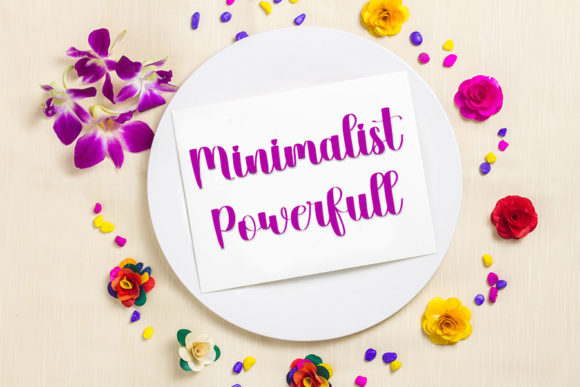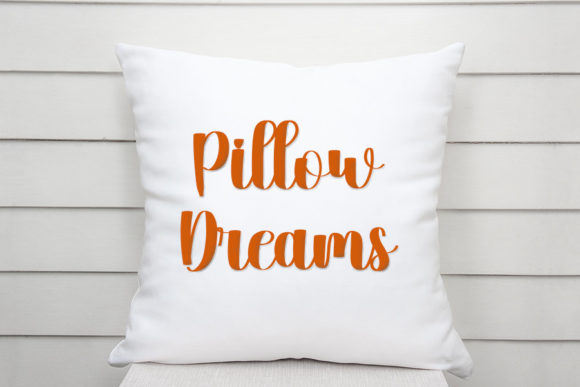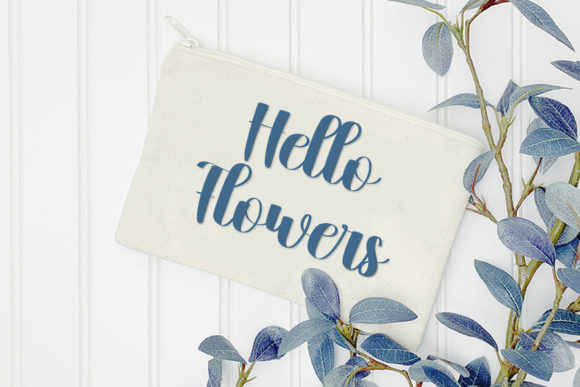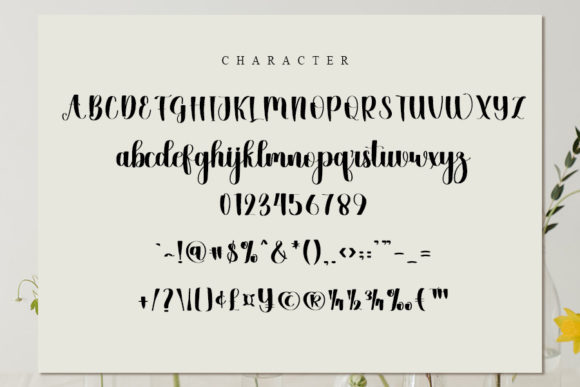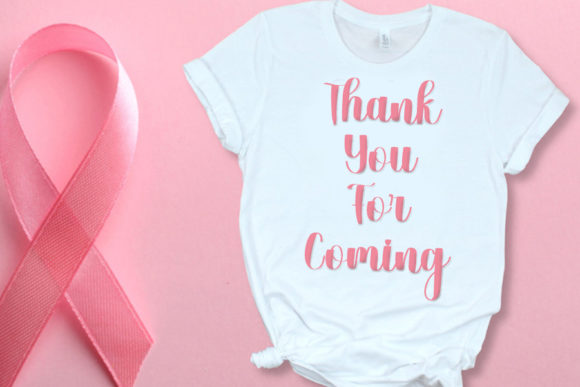
The Ultimate Guide to Culture Font: Elevate Your Designs with Elegance
I’ll never forget the time I was working on a wedding invitation design for a client, and I just couldn’t seem to find the perfect font. The project required something elegant, modern, and classy, but everything I tried looked either too bland or too over-the-top. That’s when I stumbled upon Culture Font, a beautiful and refined script font that instantly caught my eye. In this article, I’ll share my experience with Culture Font, its features, and how to make the most of it in your designs.
What is Culture Font?
Culture Font is a stunning script font designed for creative professionals like you. It boasts a classy, elegant, and modern look that’s perfect for logos, branding, invitations, stationery, wedding designs, social media posts, and more! One of the standout features of Culture Font is that it’s PUA (Private Use Area) encoded, which means you can easily access all the amazing glyphs and ligatures.
My Honest Review of Culture Font
- ✨ Elegant and modern design that’s perfect for high-end projects
- ✅ PUA encoded for easy access to glyphs and ligatures
- 💫 Highly versatile and can be used for various design projects
- 👍 Excellent for creating beautiful wedding designs, logos, and branding materials
While Culture Font is an excellent choice for many design projects, there are a few things to keep in mind:
- ⚠️ Some users may find the font a bit too ornate for certain projects
- 🤔 Limited use for body text due to its script nature
The Designer Inspiration Behind Culture Font
Culture Font was designed with the goal of creating a beautiful, elegant, and modern script font that would meet the needs of creative professionals. The designer drew inspiration from classic calligraphy and modern typography, resulting in a font that’s both refined and versatile.
Q: Is Culture Font suitable for body text?
A: Due to its script nature, Culture Font is best used for headlines, titles, and short paragraphs. It’s not ideal for lengthy body text.